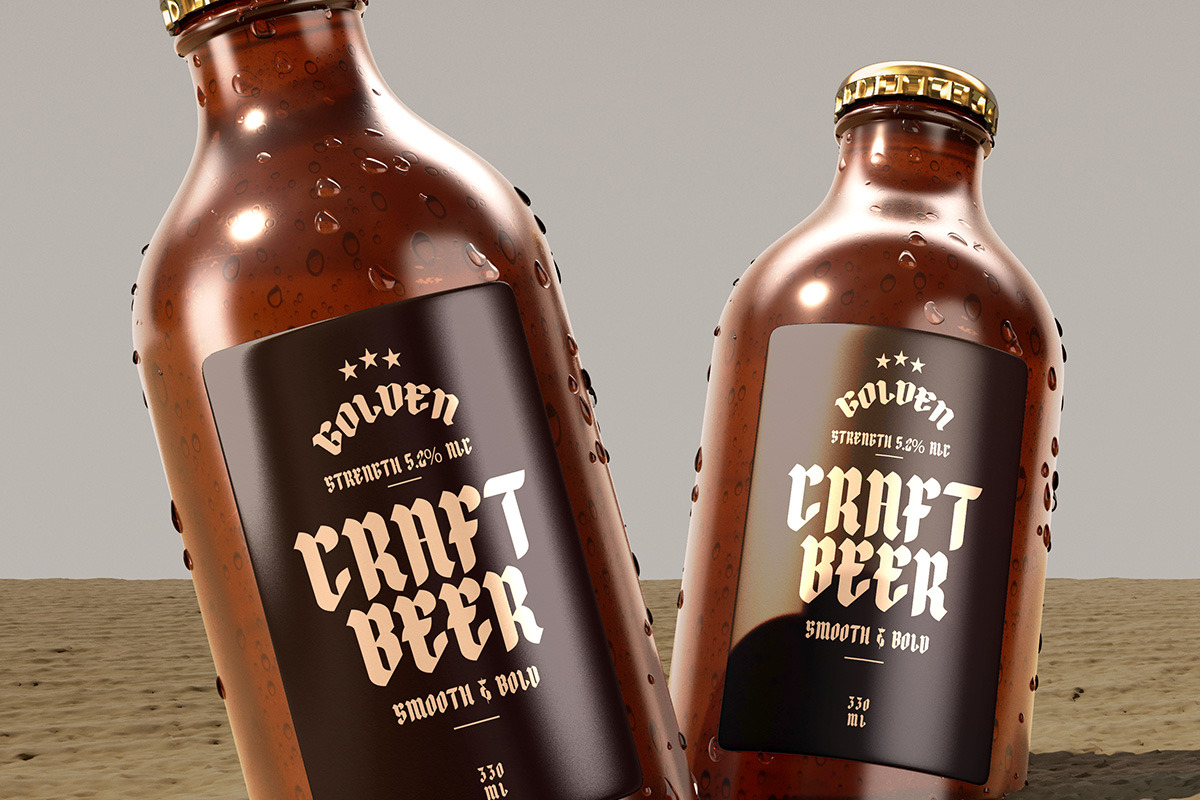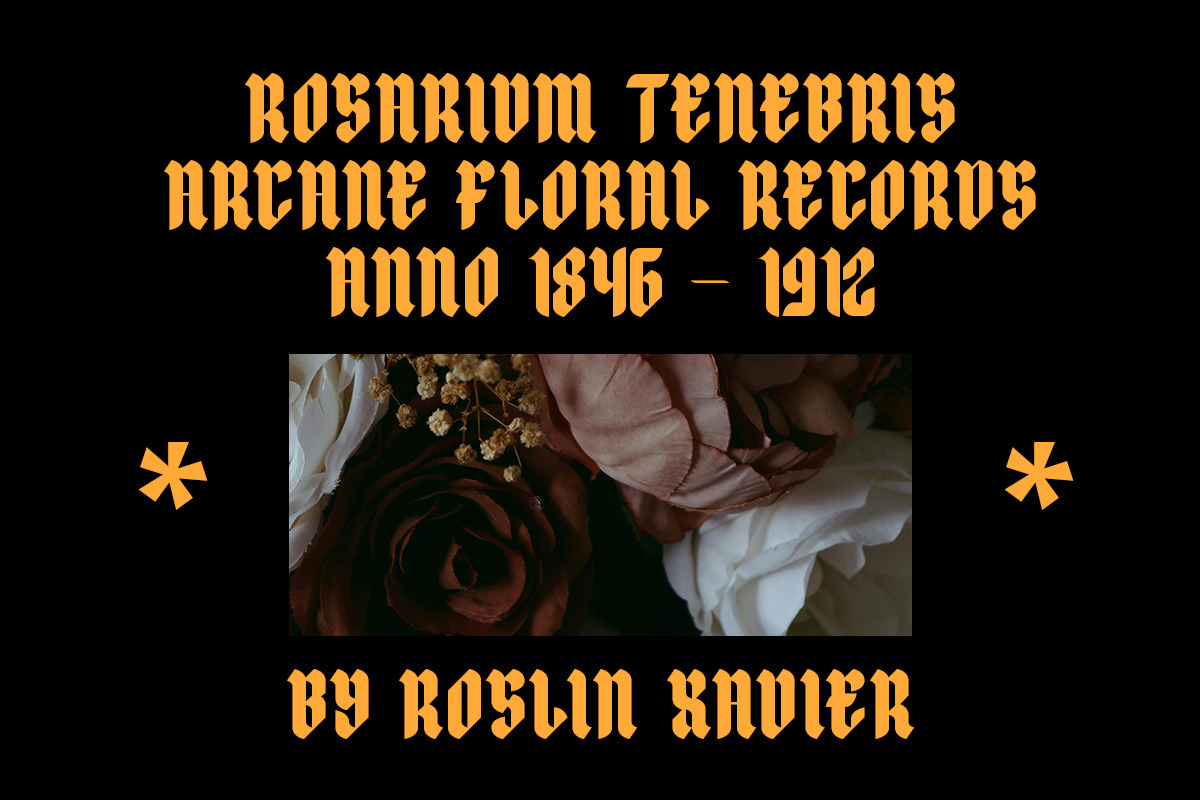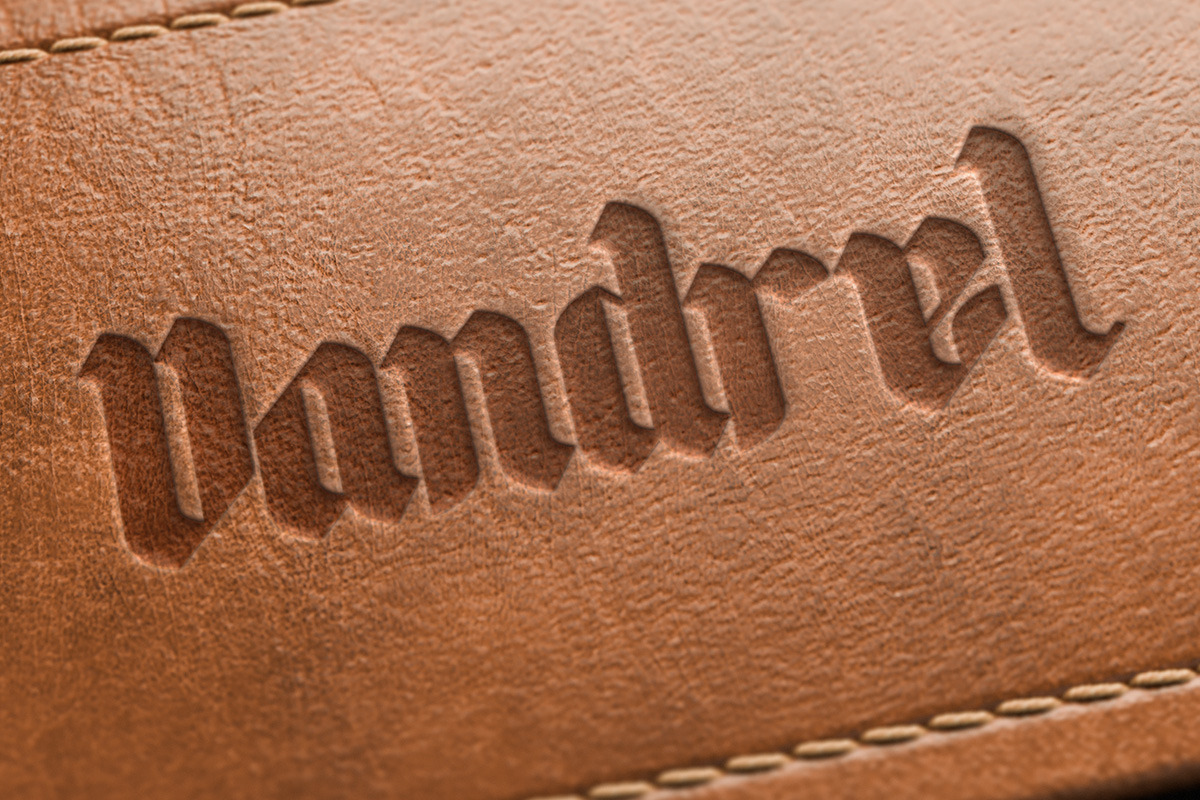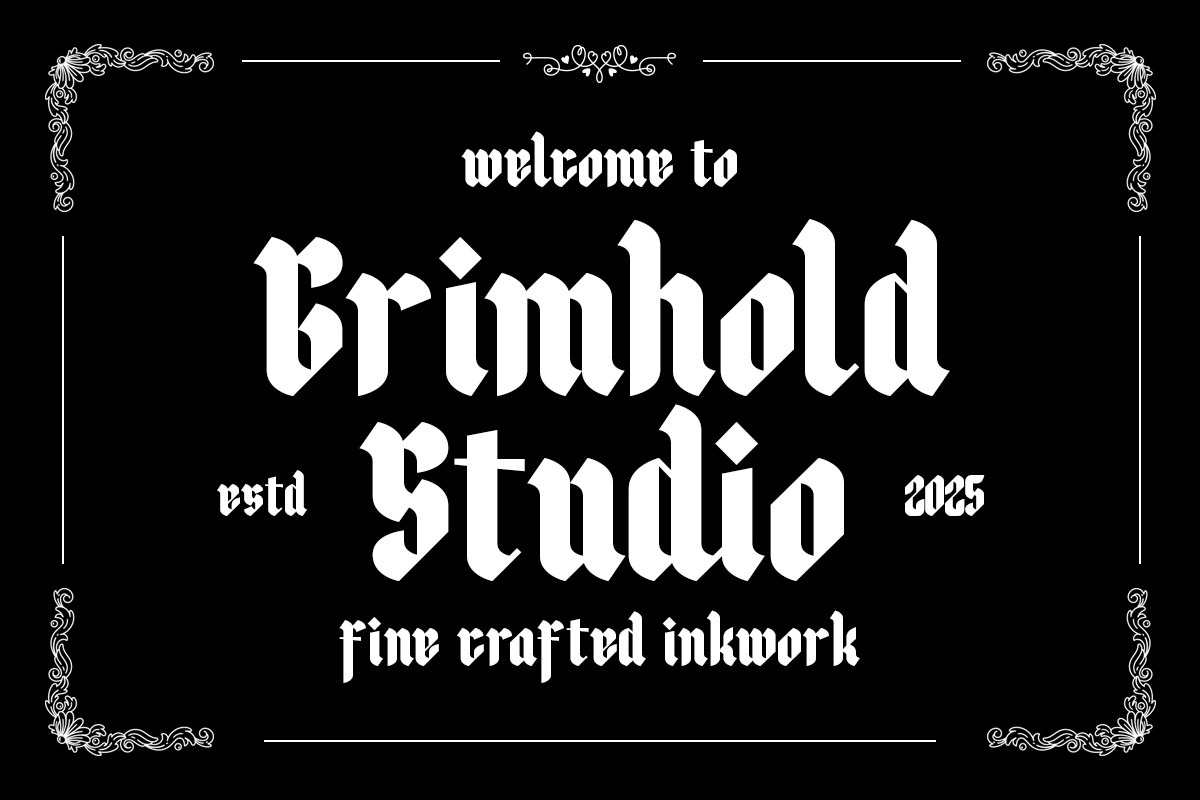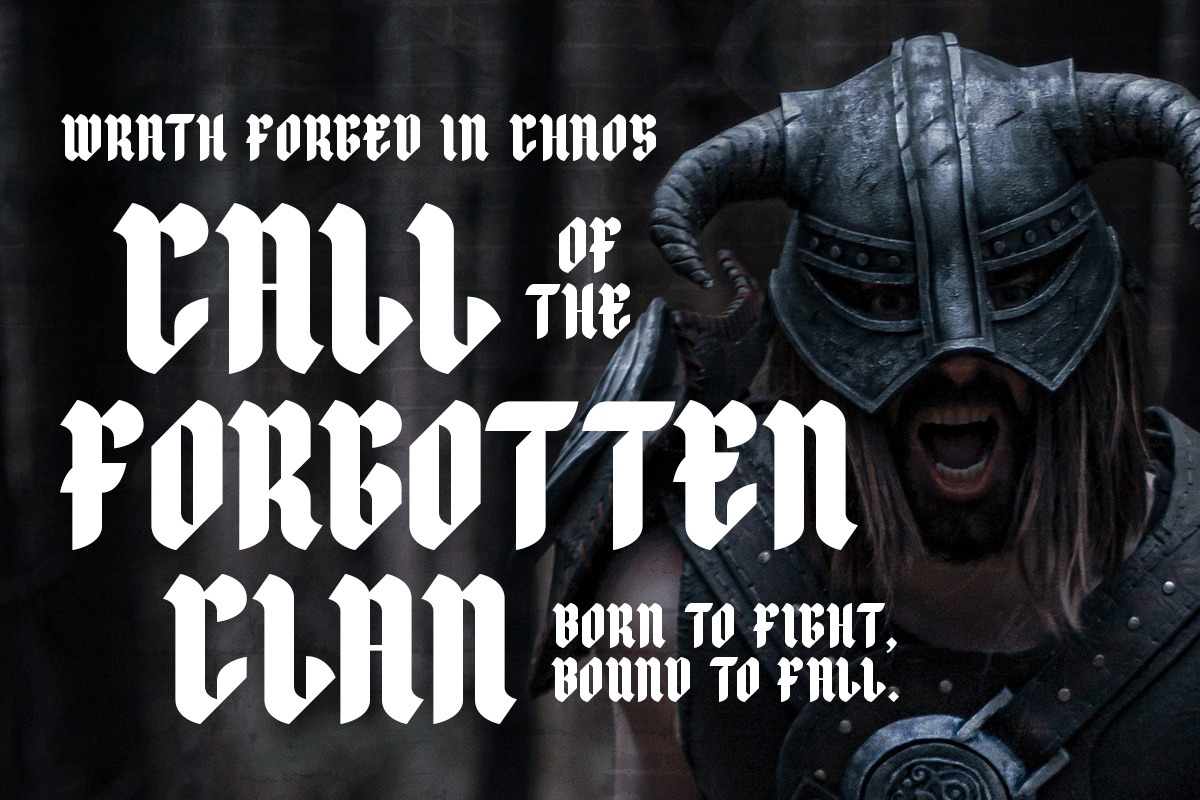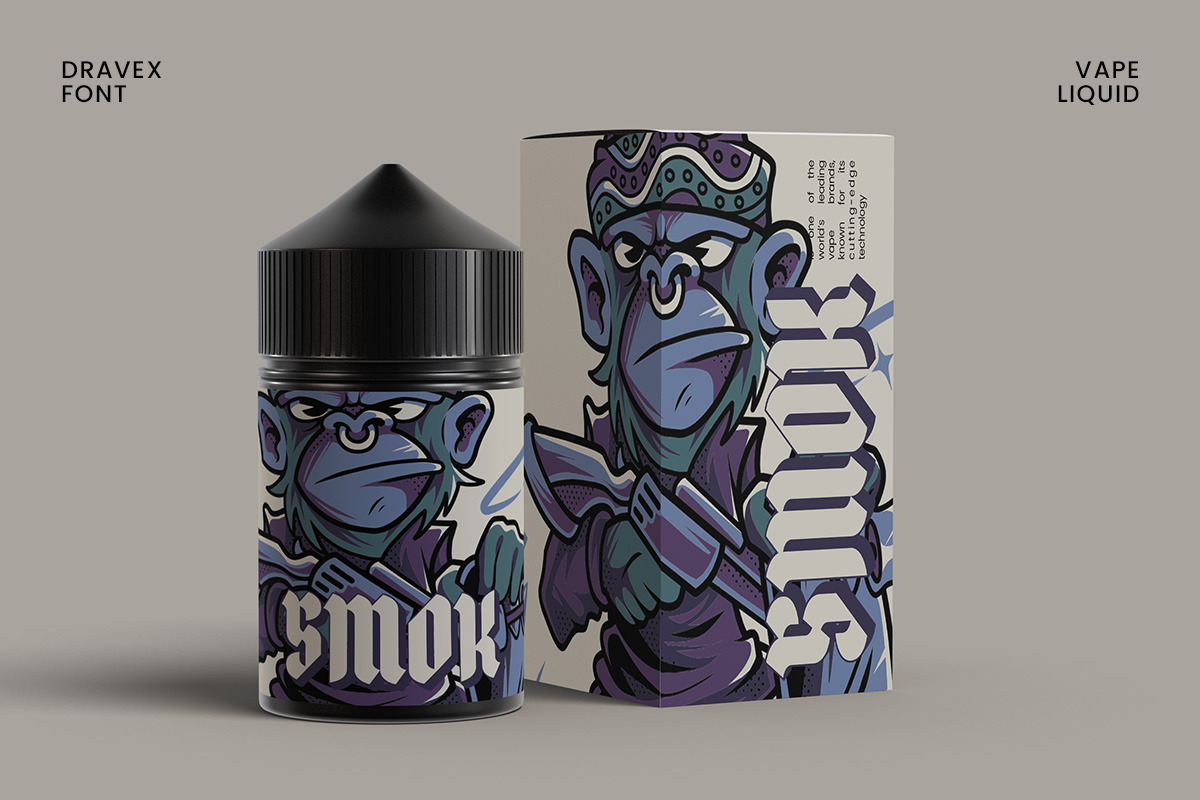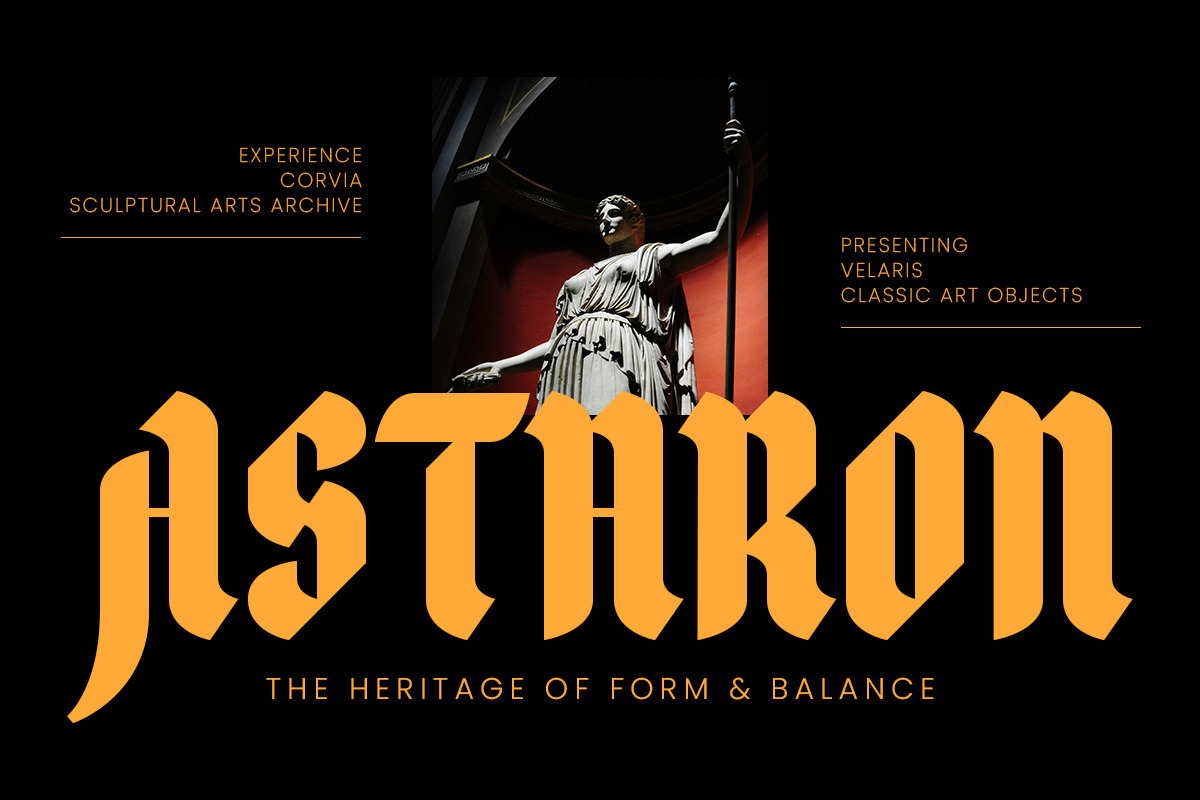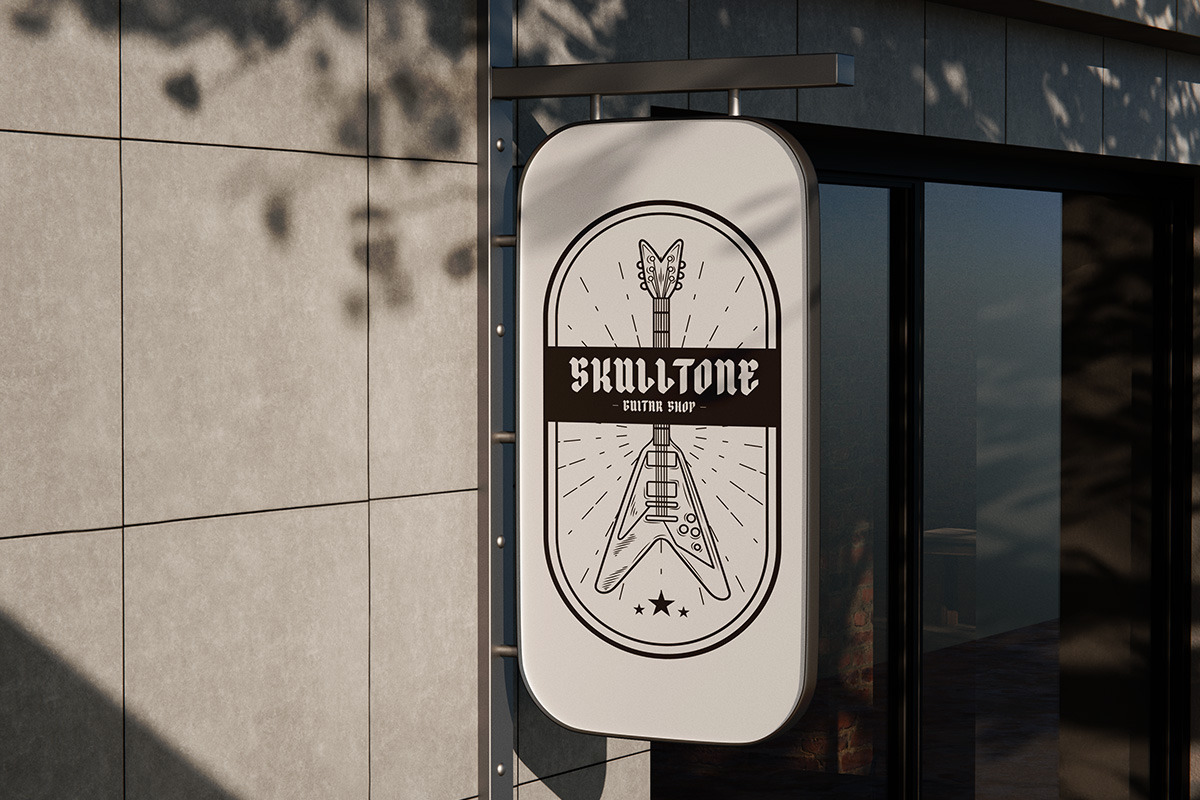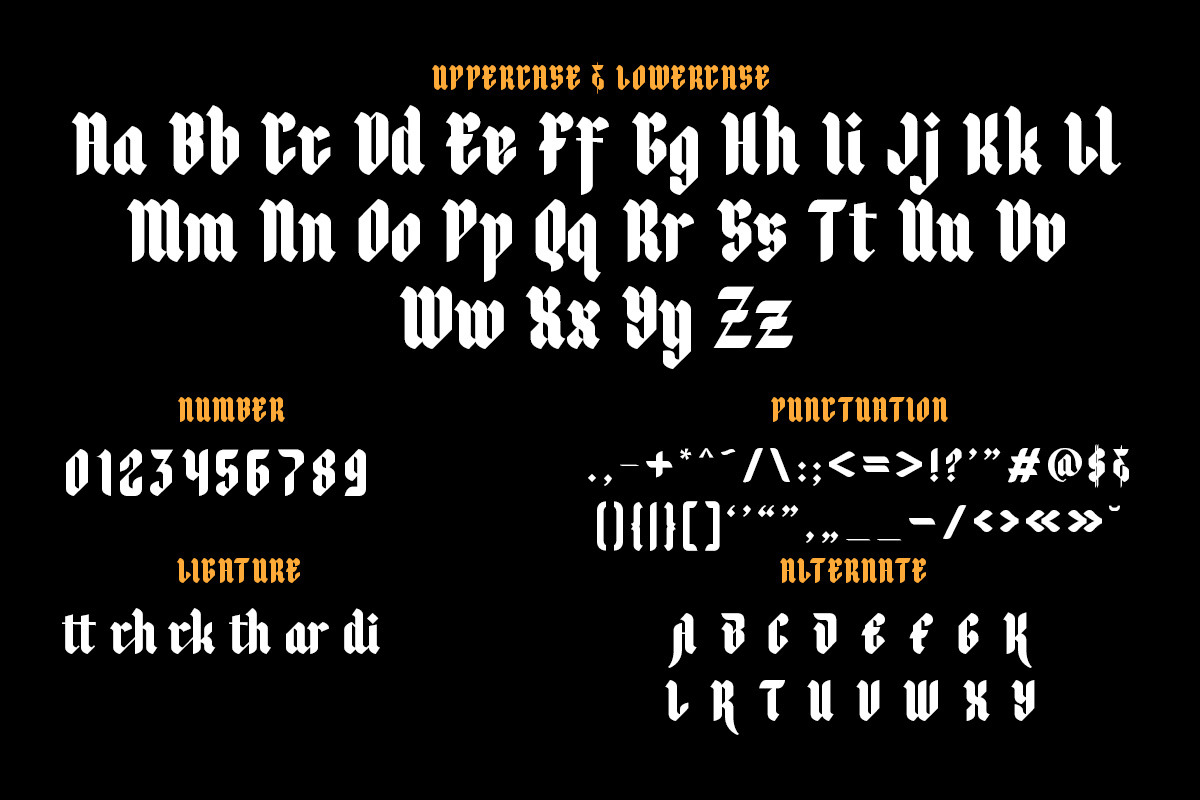
Dravex - Sign Modern Blackletter
Dravex is a gothic-inspired blackletter display font that blends old-world drama with modern attitude. Featuring bold contrast strokes, sharp edges, and assertive presence, it’s perfect for making a visual statement.
Use Dravex in everything from album covers and editorials, to brand identities, poster layouts, or digital art. It’s versatile enough to feel ancient and futuristic at once—bringing a unique twist to both minimal and expressive styles.